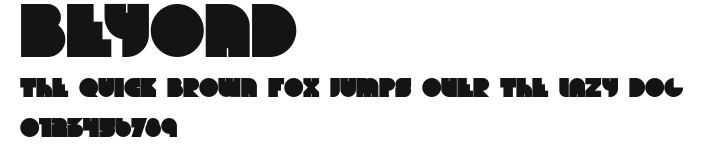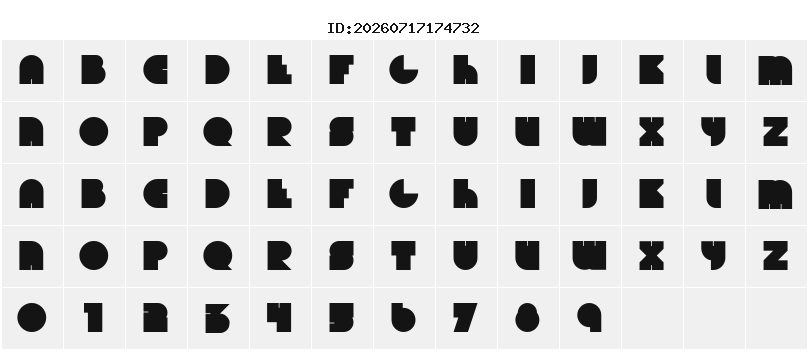
Beyond Preview
• Font Name: Beyond
• Designer: Aleksander Shevchuk
• Manufacturer: Aleksander Shevchuk with Eyelevation Typography & Gragoury
About Beyond.ttf
Beyond.ttf is a modern, elegant sans-serif font designed for ultimate readability and visual harmony. Perfect for branding, headlines, web design, and print materials.